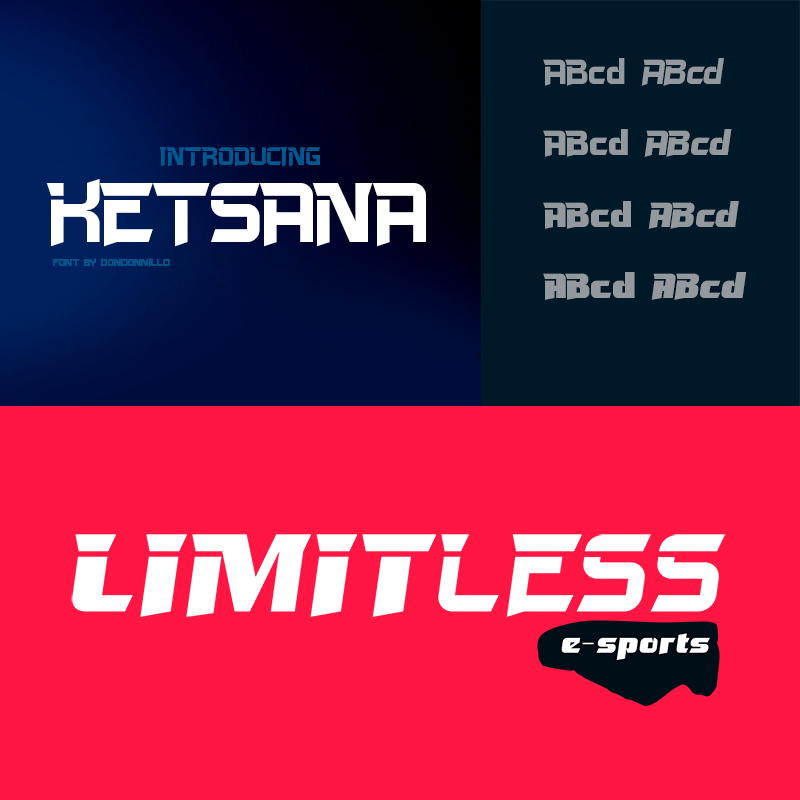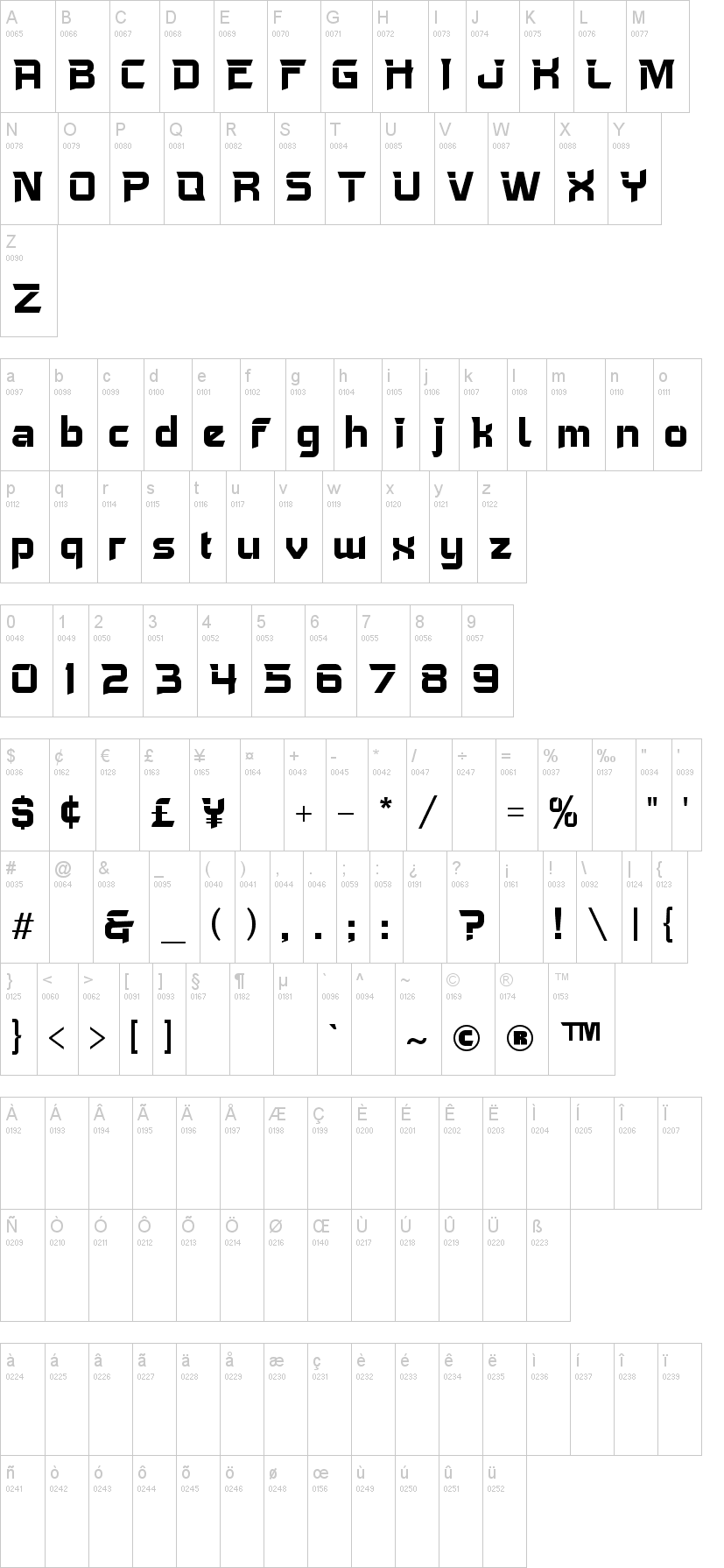
Note of the authorKetsana features an incredibly minimalist and sporty style, making it great for futuristic, techno, hi-tech, and sports logo design.